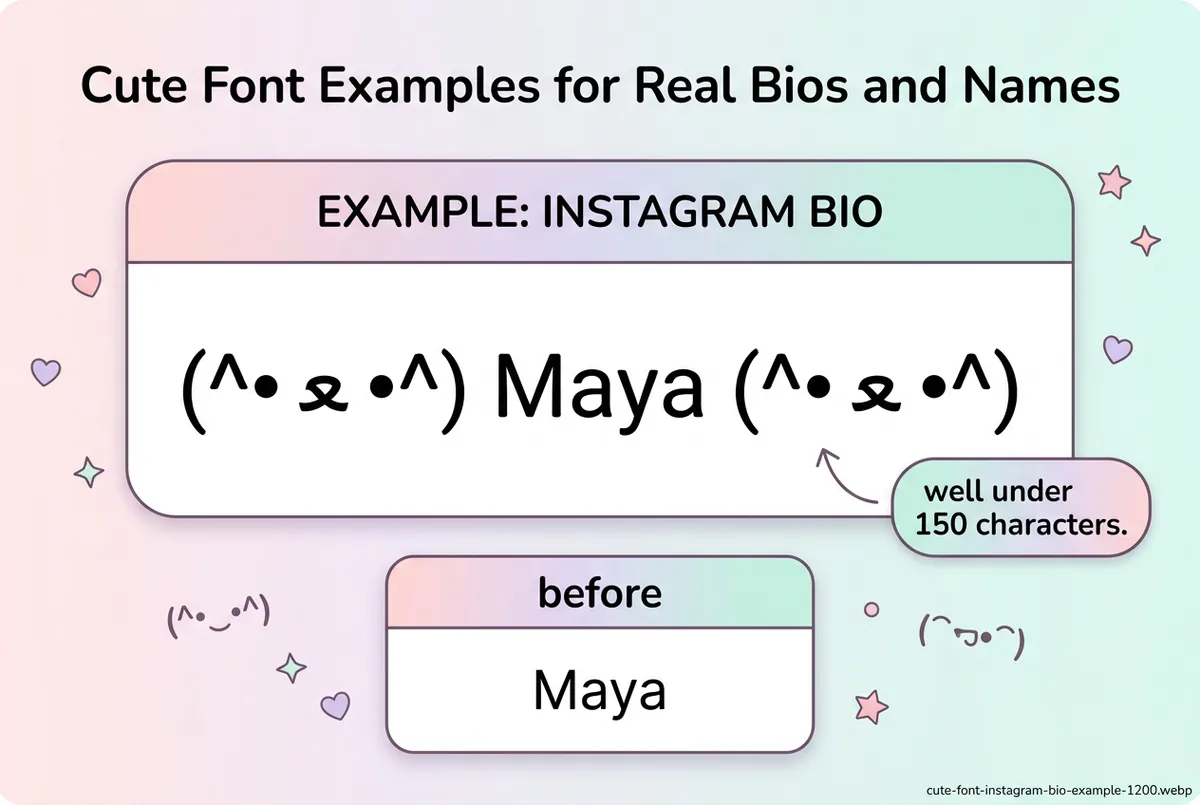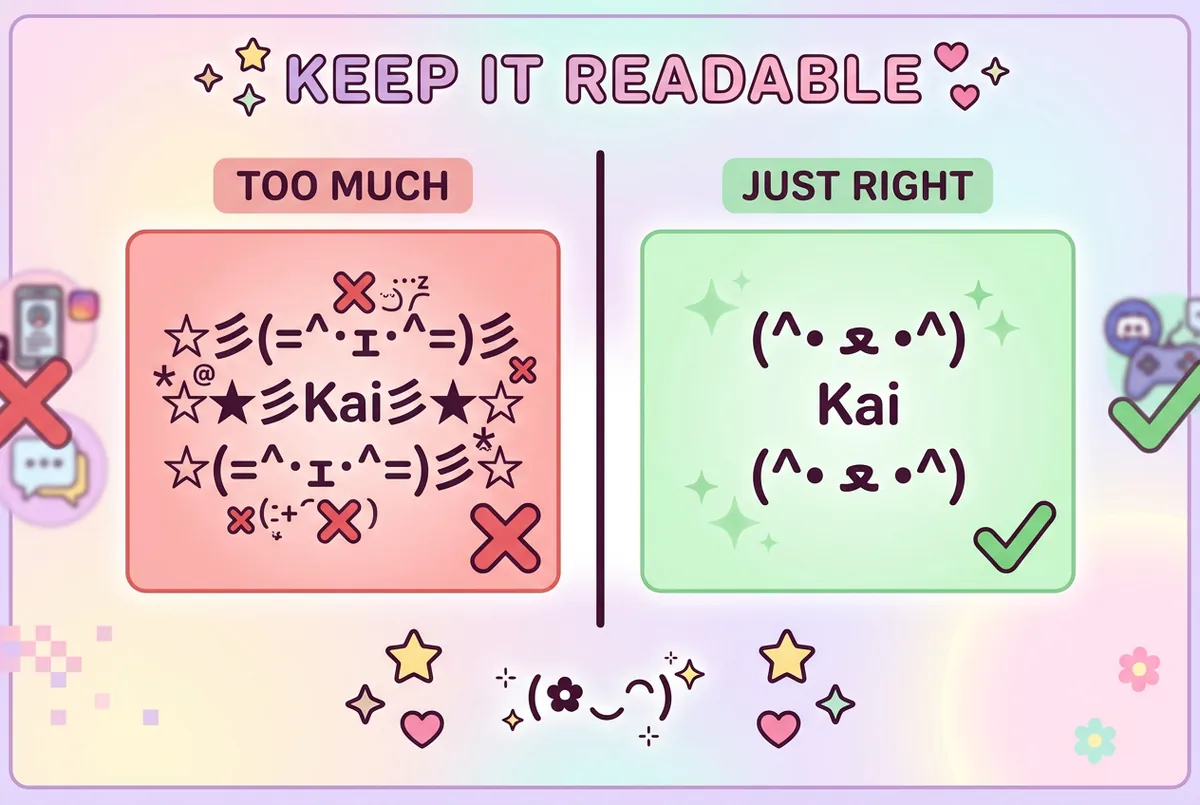
Cute Text Copy and Paste: Kawaii Styles That Work
Type a name and get kawaii, bubble and heart-decorated text back. Copy cute fonts and symbols straight into Instagram, TikTok or Discord - free.
A cute font generator is a free tool that turns a plain name or phrase into kawaii-style Unicode text — cat and bunny kaomoji, hearts, bubbles, and soft lettering you can copy and paste directly into a bio, caption, or username. No download, signup, or font install is needed, and the result works because it's built from standard Unicode characters, not an image or a font file.
Quick checklist
- Open the cute font generator and type your text.
- Compare kaomoji-wrapped styles like Kitty Text, Bunny Script, and Sparkle Cute.
- Pick a style that still reads clearly at bio or nickname size.
- Copy it with one click and paste it into the platform you're using.
- Check the character count against that platform's limit before saving.
Best practical use case: use cute text for a short profile opener, matching profile line, or playful display name, then keep handles, links, and contact details plain — browse the broader Font Styles hub if kawaii isn't quite the direction you're after.
Which Cute Style Fits Your Situation?
Not every kawaii style suits every field. A wide kaomoji wrapper that looks great as a standalone bio line can eat into a tight nickname limit fast. Use the table below to skip straight to the style that fits what you're pasting into.
| Situation | Best For | Key Difference | Recommendation |
|---|---|---|---|
| Instagram or TikTok bio opener | A short display name at the top of a profile | Kaomoji faces read cleanly on their own line and don't compete with a tagline below | Kitty Text or Sparkle Cute |
| Discord nickname (32-character cap) | Gamers who want a playful tag without losing space | A shorter wrapper leaves more of the 32-character limit for the actual name | Ribbon Bubble or Cute Bubble |
| Matching couple or friend profiles | Two people who want their bios to visually pair up | Using the same kaomoji face on both accounts ties the look together, even with different names | Bunny Script or Heart Blink |
| A longer caption or paragraph | Full sentences, not just a name | Kaomoji wrappers add width and can make long text harder to scan | Skip the wrapper — use plain text or a light heart accent instead |
How to Copy and Paste Cute Fonts
- Open the cute font generator — go to the Cute Fonts tool and land on the input box at the top of the page.
- Type your name or phrase — every style below the box updates live as you type, so there's nothing to submit or refresh.
- Scroll through the kaomoji-wrapped styles — check how each one reads with your specific word, not just the generic preview text.
- Click Copy on your favorite — the styled text copies as plain characters, so no special paste option is needed.
- Paste it and count the characters — drop it into your bio, nickname, or caption field, then confirm it still fits that platform's limit before you save.
A common failure point here is picking a style based on the demo text alone. A kaomoji face that looks balanced around "Font Generator" can look lopsided around a three-letter name — always preview it with your own words first.
Kawaii, Bubble, Soft, and Decorated — What's the Difference?
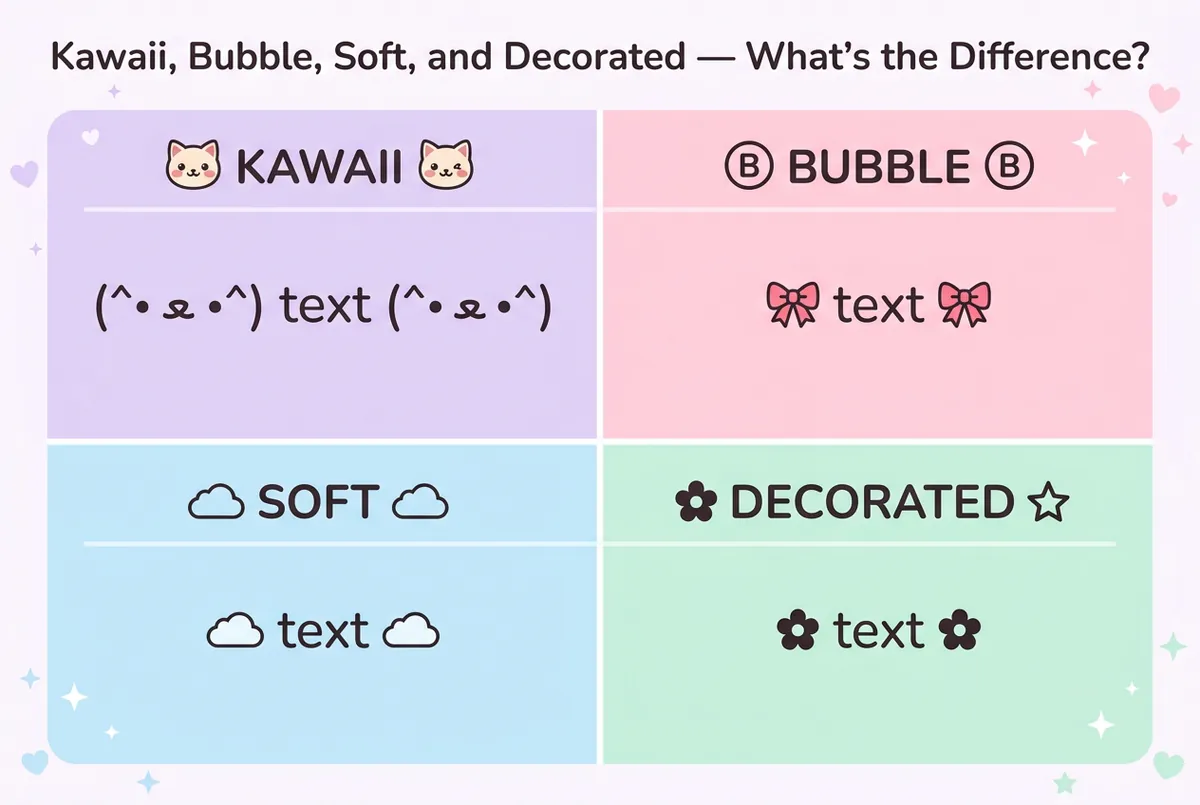
"Cute" isn't one look — it's a cluster of related styles, and mixing them up is the easiest way to end up with the wrong result. Here's how the four main directions differ:
- Kawaii styles wrap your text in a kaomoji face — cat ears, bunny whiskers, blushing cheeks — built from punctuation and symbol characters rather than color emoji. Examples on the cute font generator include Kitty Text
(^• ﻌ •^), Bunny Script(´• ω •), and Puppy Paws(=^・ω・^=)`. - Bubble styles wrap your letters in circled Unicode characters, either on their own or paired with a ribbon or bow symbol, like the Cute Bubble style:
🎀 🅕🅞🅝🅣 🅖🅔🅝🅔🅡🅐🅣🅞🅡 🎀. For circle letters without the kaomoji layer, the bubble font generator is the more focused option. - Soft styles skip the face entirely and leave the letters as you typed them, with one restrained symbol around them — Cloud Soft's
☁️。:.゚framing, or Candy Wide's 🍬 around fullwidth letters. These work well when a kaomoji wrapper would feel too busy, and because the letters are untouched they are the easiest to read. - Decorated styles add stars, sparkles, or florals around the text without a face at all, like Sparkle Cute
Can I use a cute font for a Discord nickname? Yes, Discord nicknames support full Unicode and allow up to 32 characters, so a compact kaomoji wrapper like Ribbon Bubble or Cute Bubble tends to fit better than a longer one.